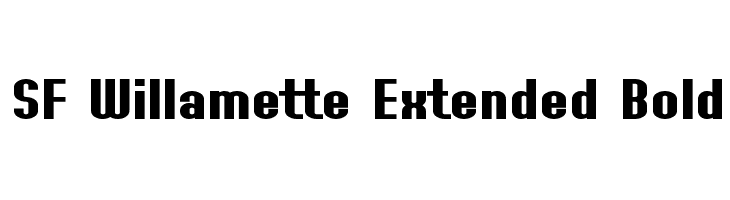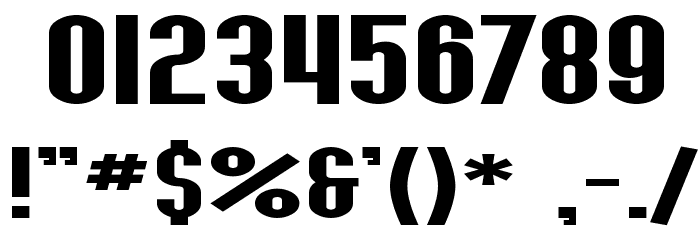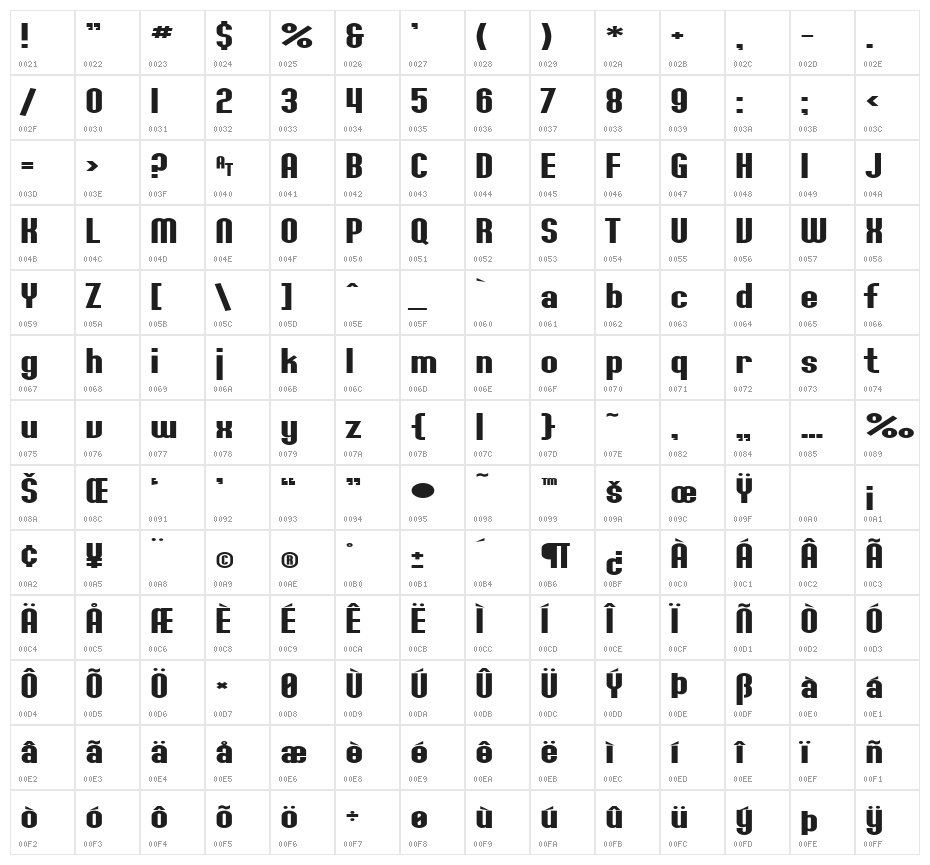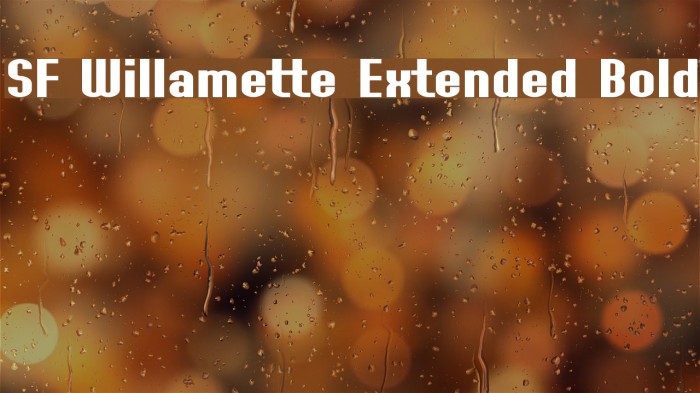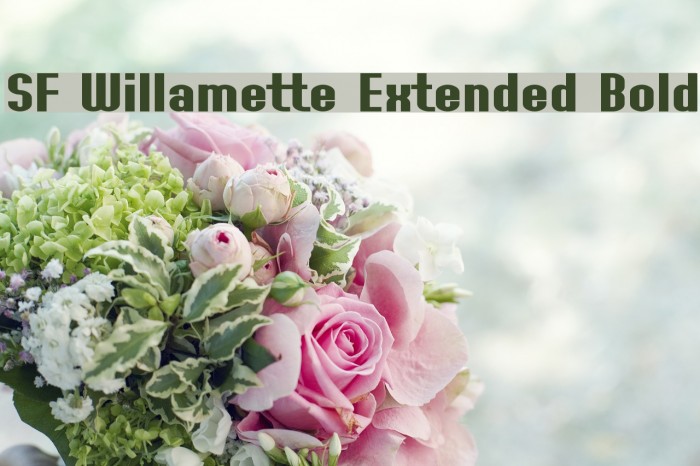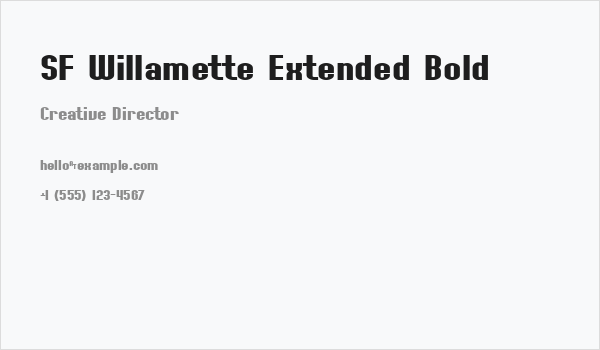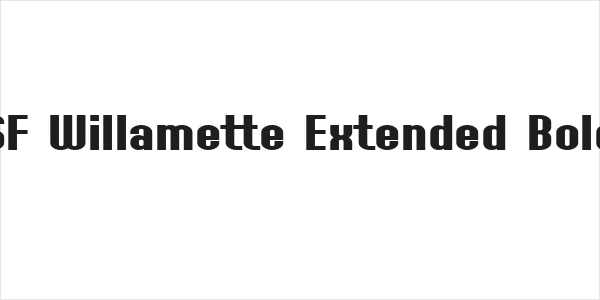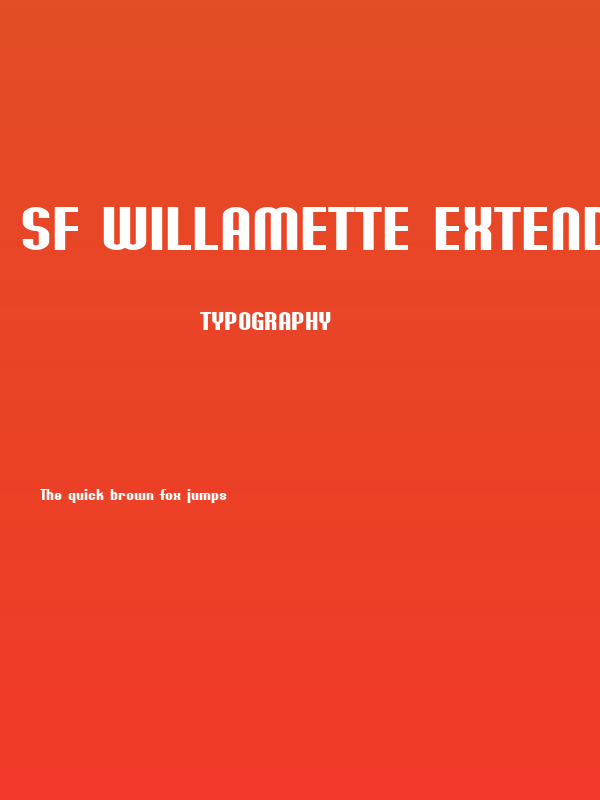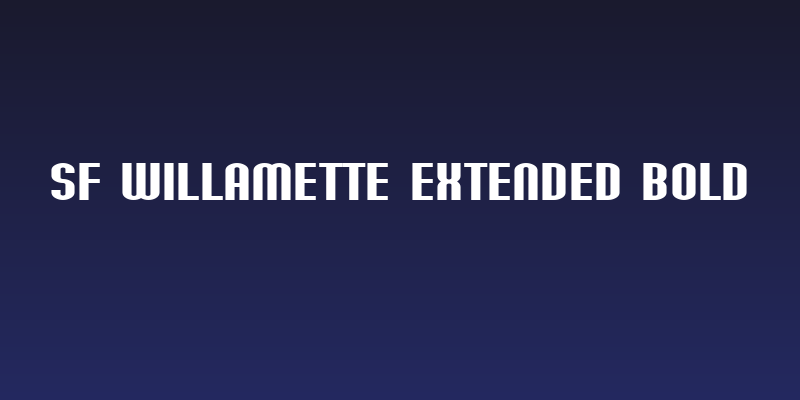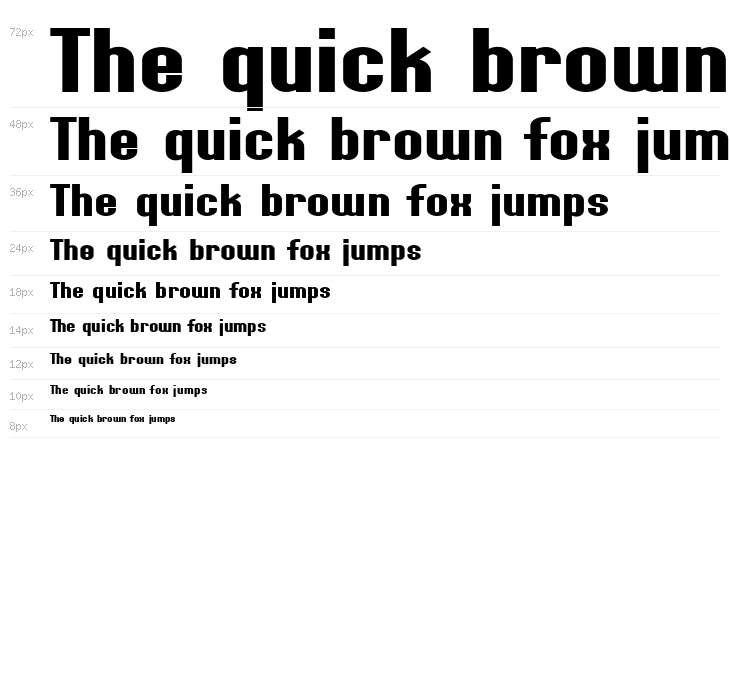
SF Willamette Extended Bold Font
SF Willamette Extended Bold Description
This font features a bold and extended style with a strong presence. The characters are wide and have a uniform thickness, giving them a robust and impactful appearance. The uppercase and lowercase letters maintain a consistent design, with rounded edges and a slightly condensed form. The numerals are clear and easy to read, matching the boldness of the alphabetic characters. Special characters are well-defined, ensuring versatility in various design contexts. The overall look is modern and assertive, suitable for making a statement.
| Proposed Projects | Ideal for headlines, posters, branding, and any project requiring a bold statement. |